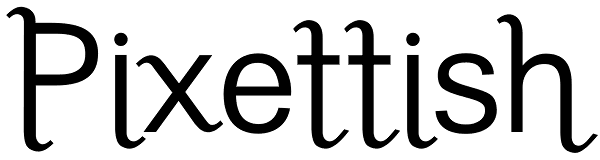
Pixettish
Pixettish is a fun-font, a slightly ornamental sans serif typeface with curls to the upper and lower case characters. The zip files contain both OTF and TTF versions of the font - install one version only.